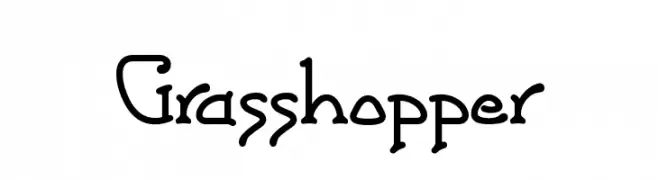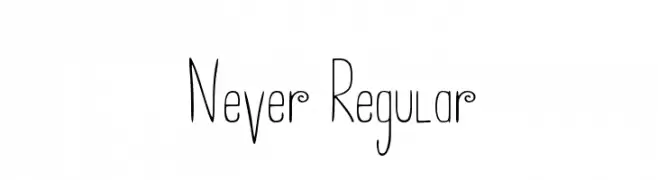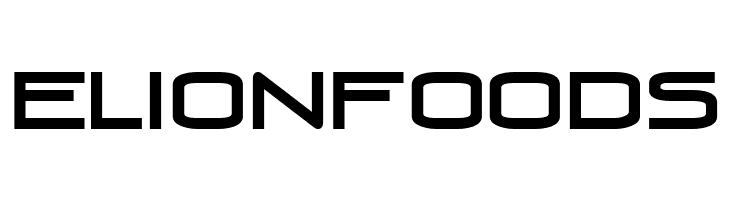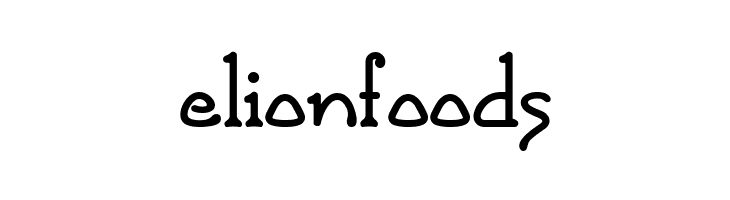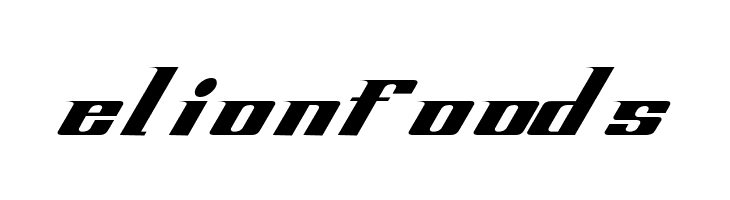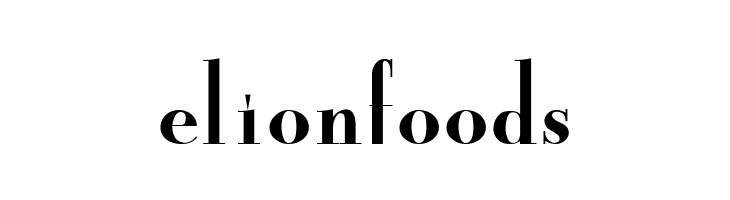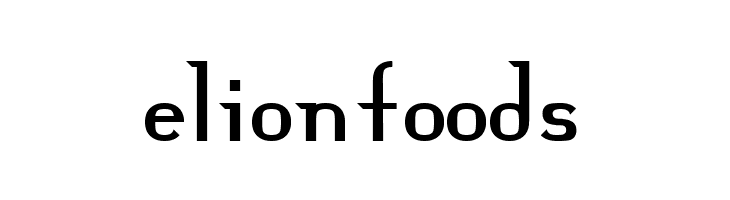
( Fonts by Nick Curtis - www.nicksfonts.com )
A playful, hand-drawn font with a whimsical and dynamic style.
( Fonts by www.DigitalDreamDesign.net )
A futuristic, geometric font with clean lines and rounded edges.
( Fonts by Matthew Welch - www.squaregear.net/fonts/ )
A playful, whimsical font with tall, narrow letterforms and irregular strokes.
( Fonts by dartcanada.tripod.com - Darren Rigby )
A bold, high-contrast serif font with a modern yet classic style.
( Fonts by Alan Carr )
A classic serif font with high contrast and elegant serifs.
( Fonts by AJ Palmer )
A rugged, hand-drawn font with a rough, textured appearance.